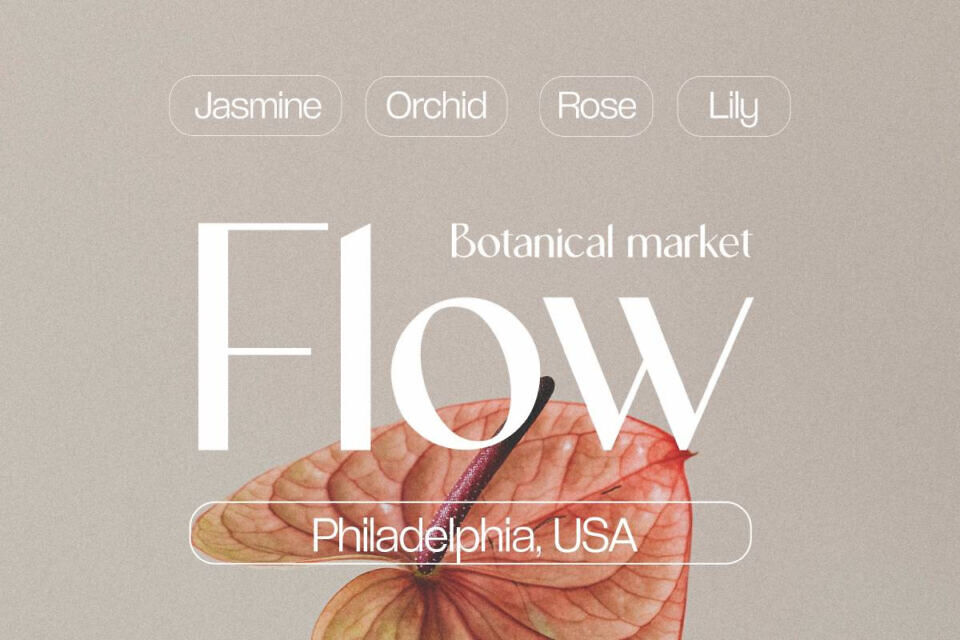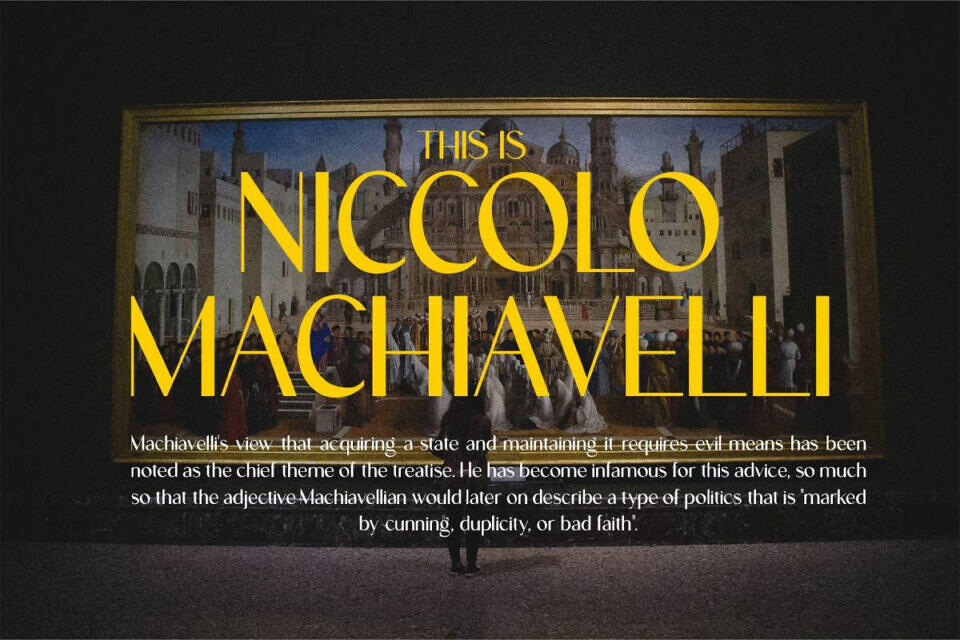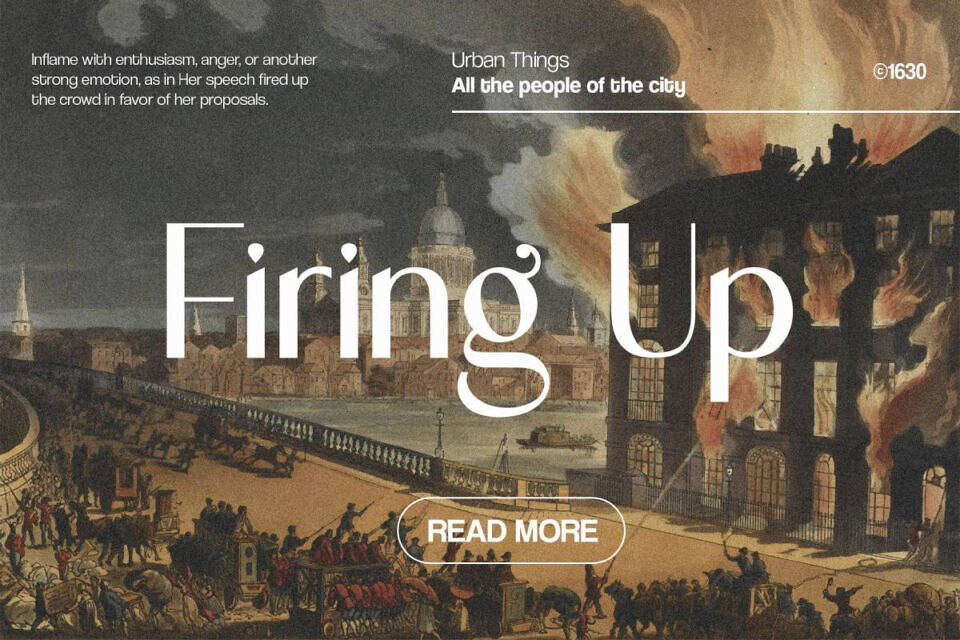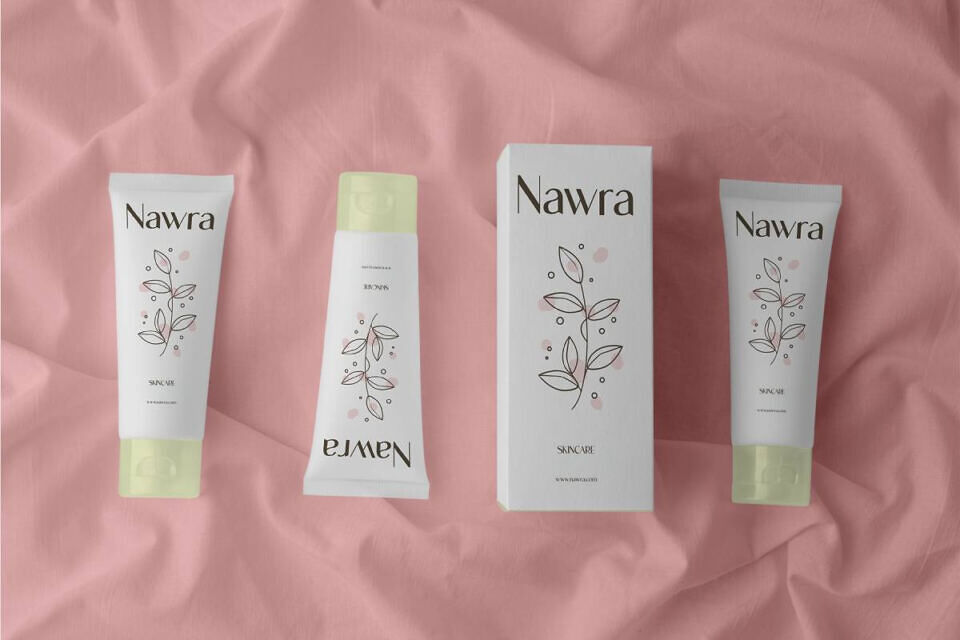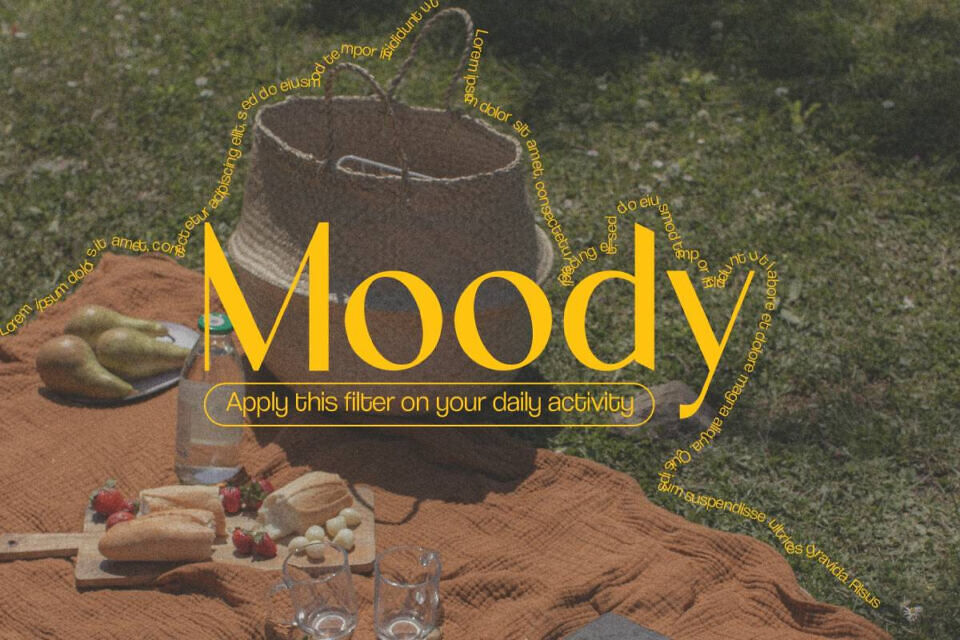
Gencha is a modern and versatile sans-serif font designed to elevate your creative projects. Featuring clean lines and contemporary styling, Gencha delivers an elegant and professional touch to every design. Whether you’re creating logos, branding, social media graphics, or editorial layouts, this font adapts seamlessly to your vision.